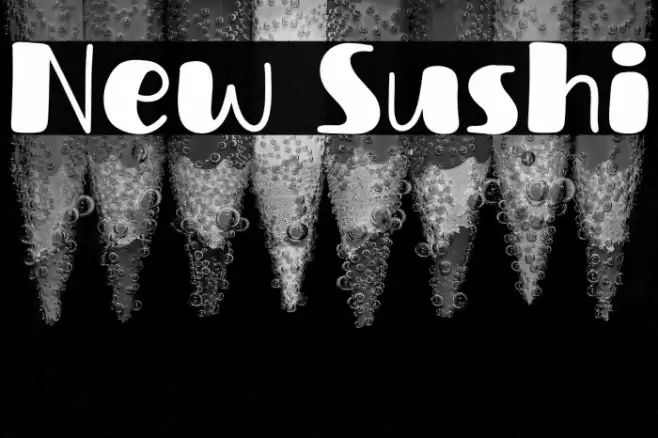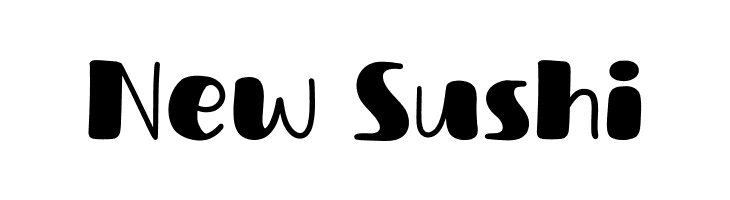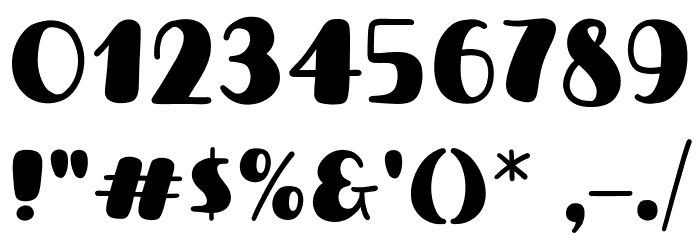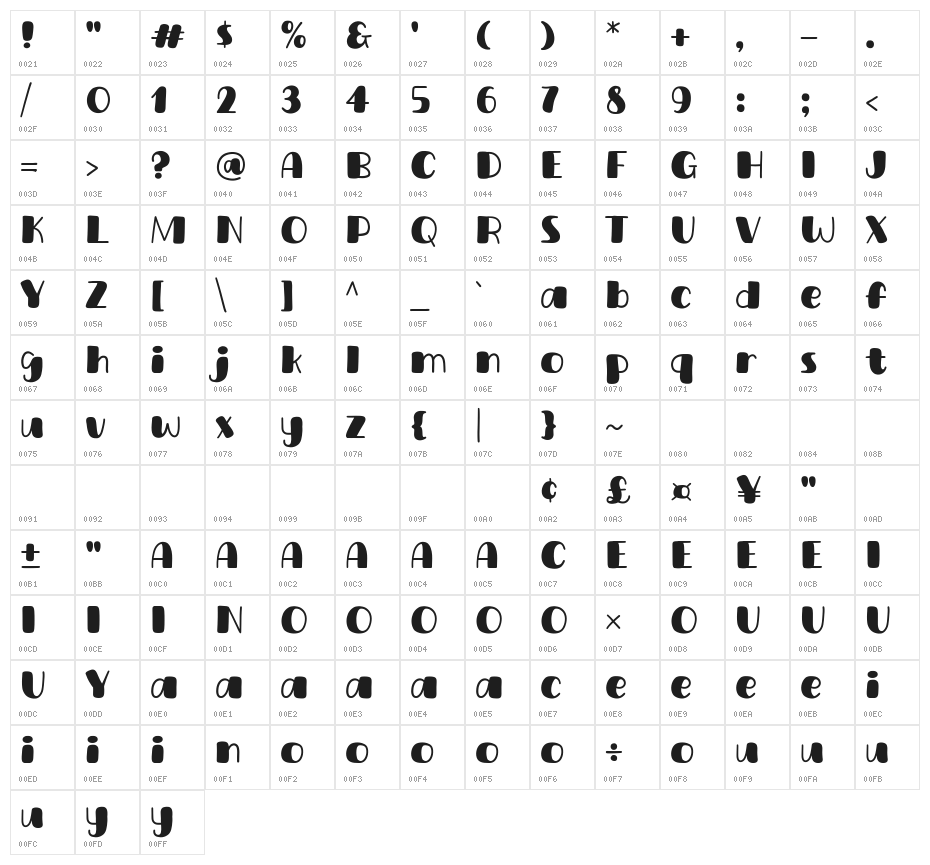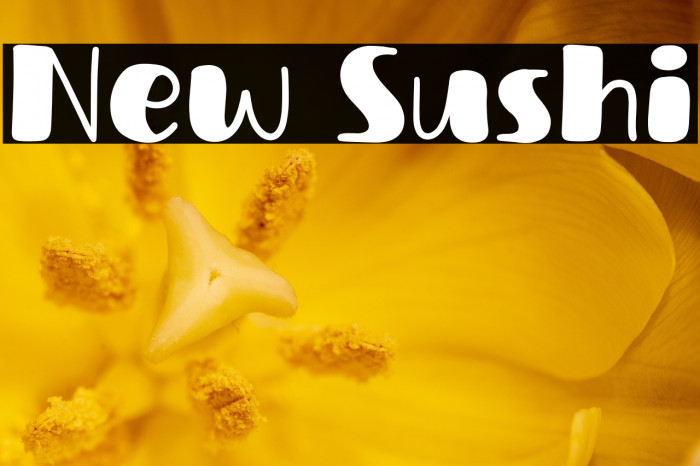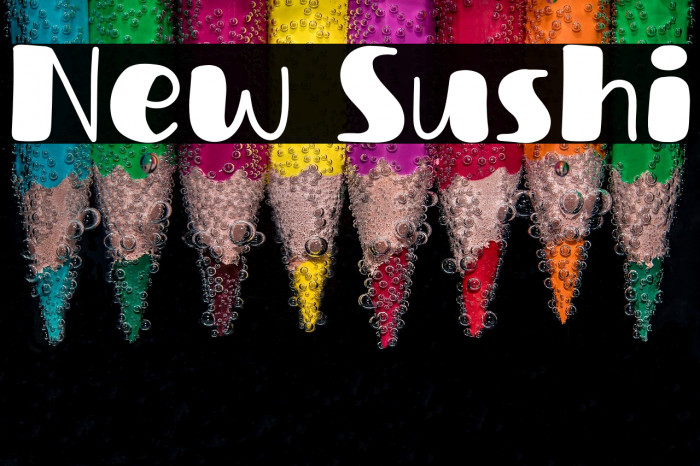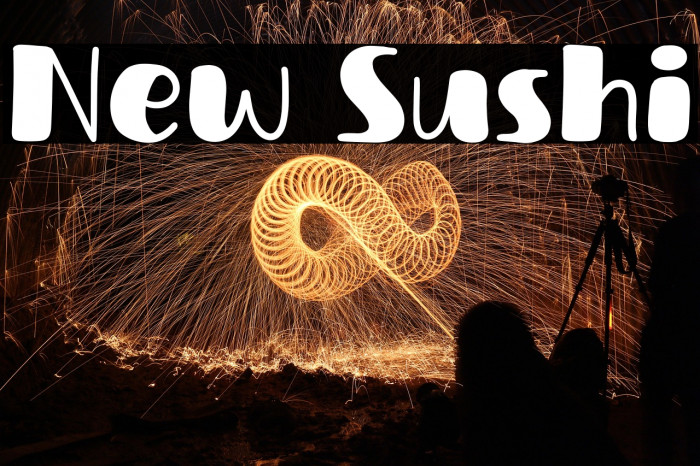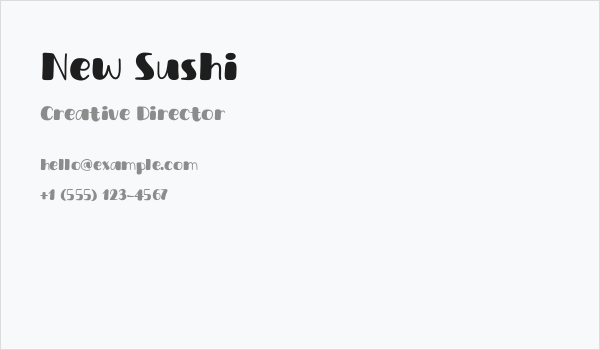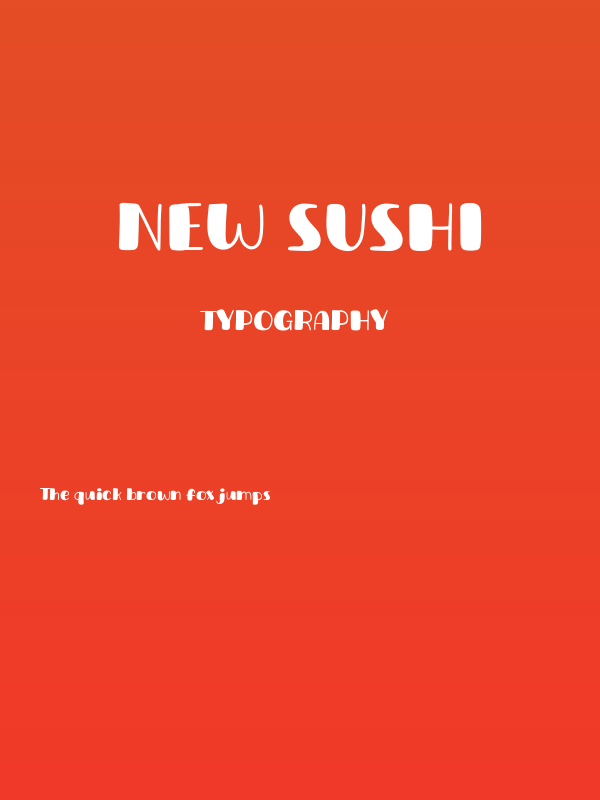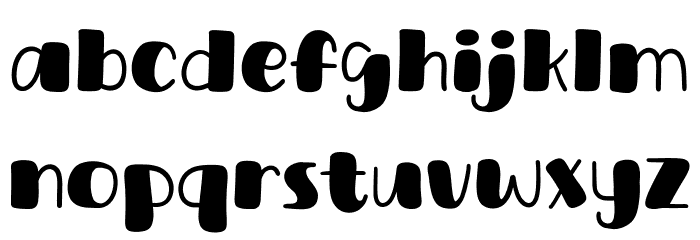
New Sushi Font
New Sushi Description
This font features a playful and bold style with rounded edges and a whimsical flair. The uppercase letters are robust and slightly condensed, giving a strong presence, while the lowercase letters maintain a friendly and approachable feel. The numbers are consistent with the overall style, ensuring readability and uniformity. Special characters are creatively designed, adding to the font's unique personality. The strokes are thick, providing a strong visual impact, and the overall design is modern with a touch of fun, making it suitable for various creative applications.
A playful, bold font with rounded edges and a whimsical style from Kids fonts.
- Proposed Projects: Ideal for children's books, playful branding, creative posters, and eye-catching headlines.
- Width: Condensed
- Overall Style: Modern, Playful